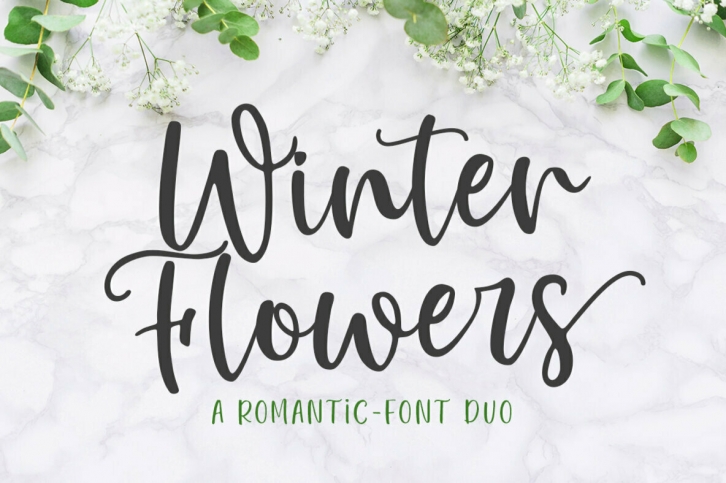
Winter Flowers - Font Duo is a unique and modern hand script that provides a large selection of alternative characters to choose from as well as ligatures that look natural to add the authenticity of the letters.
Winter Flowers is a modern handwritten font, loaded with awesome OpenType features, and set alternative characters for uppercase and lowercase letters. Make custom letters a dream Thank you for all the extra decorative choices you can make for beautiful and unique customizations - swashes, endings, alternative letters.
Designed to work harmoniously, Winter Flower is also equipped with Sans fonts, to perfect your design. This font is perfect for branding, logos, web and editorial design, branding, prints, invitations, handicrafts, quotes, and more.